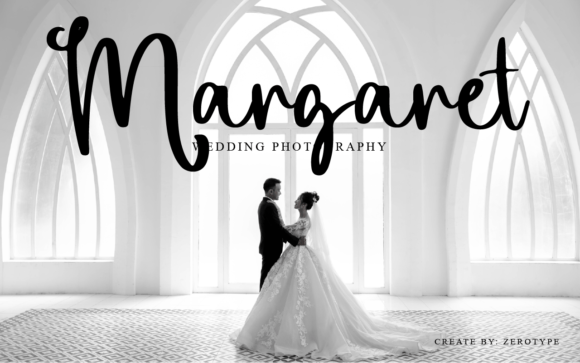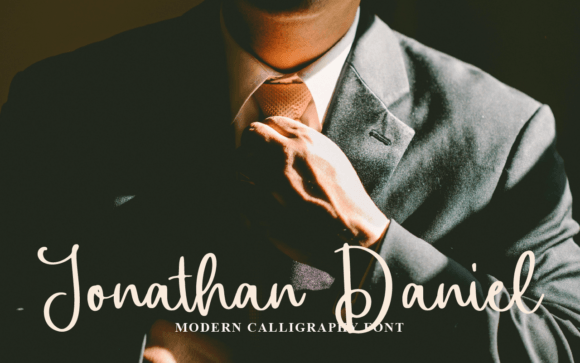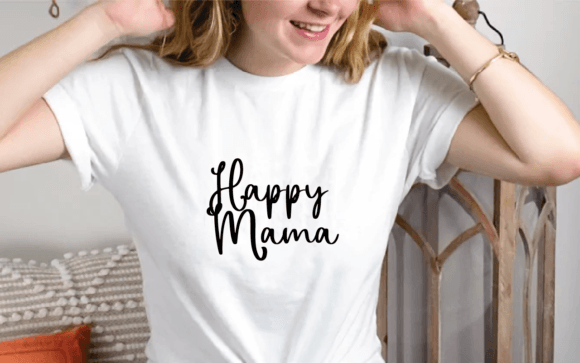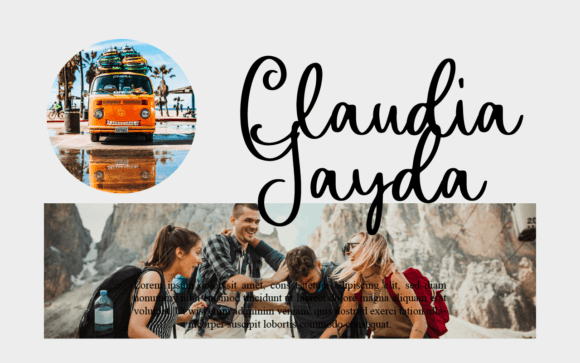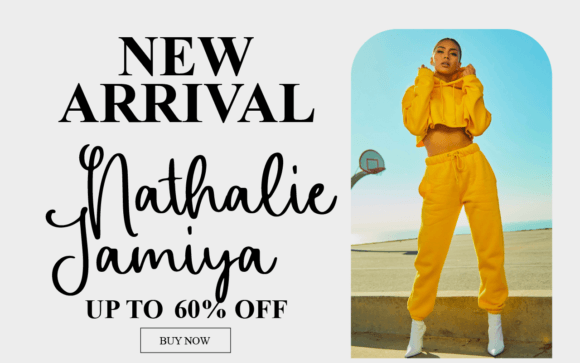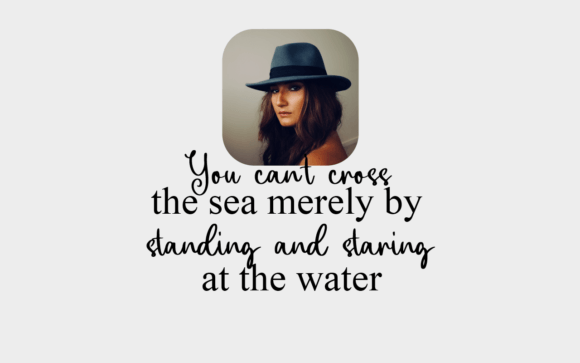
The Enchanting Alma Giada Font: A Designer’s Dream Come True
I still remember the design project that led me to discover the breathtaking Alma Giada Font. I was working on a wedding invitation suite, and my client was adamant about finding the perfect script font that would convey elegance and sophistication. After hours of scouring through font libraries and testing various options, I stumbled upon Alma Giada, and it was love at first sight! ✨
As I dove deeper into the world of Alma Giada, I fell in love with its:
• ✨ Delicate curves and intricate details that add a touch of refinement to any design project
• ✅ Elegant and charming aesthetic that’s perfect for high-end designs, wedding materials, and luxury branding
• 💫 Timeless beauty that captivates and enchants viewers, leaving a lasting impression
However, I did notice a few quirks:
• 🤔 Limited availability of certain characters and glyphs in some font formats
• ⚠️ Occasional kerning issues when using the font in certain design software
The Story Behind Alma Giada
Alma Giada was designed by a talented type designer who drew inspiration from traditional calligraphy and hand-lettering techniques. The font’s creator aimed to craft a script font that would exude elegance and sophistication, while also being versatile and easy to use. With its intricate details and delicate curves, Alma Giada has become a favorite among designers and crafters worldwide.
What makes Alma Giada so special? Alma Giada’s unique blend of elegance, charm, and sophistication makes it a standout font for high-end designs and creative projects.
Is Alma Giada suitable for body text? While Alma Giada is primarily designed for display text, it can be used for body text in certain contexts. However, its elegant and cursive nature may make it more suitable for headings and titles.